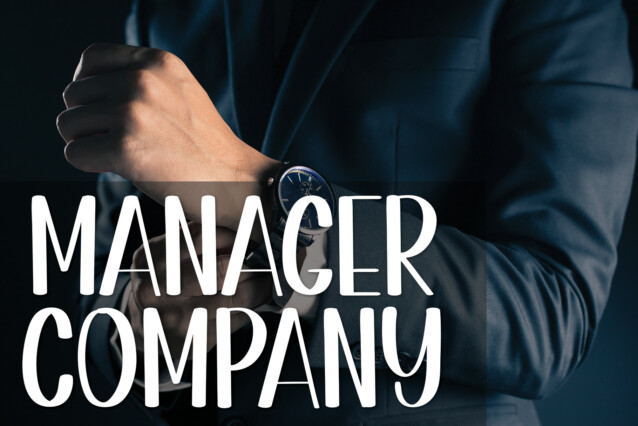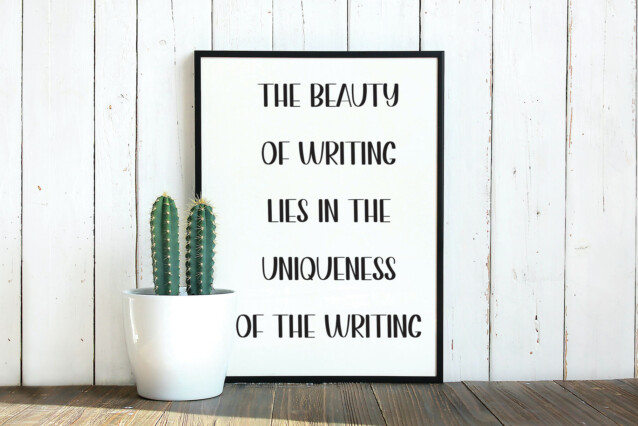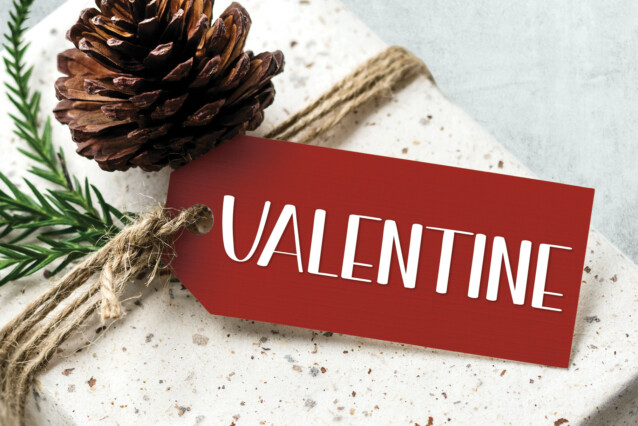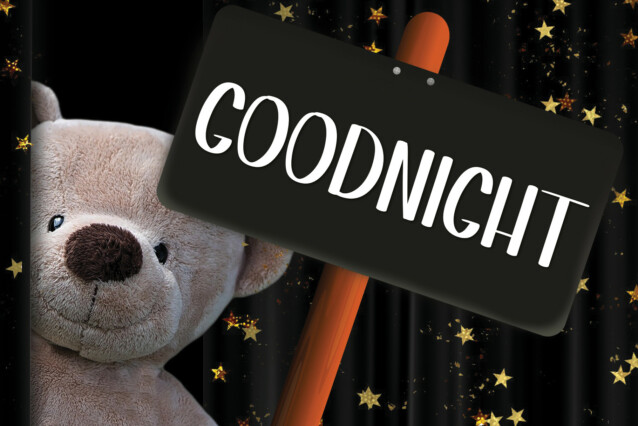
Indoor School Display Font
Indoor School Display Font is a clean and professional-looking handwritten font. Incredibly versatile and with a casual vibe, this typeface is suitable for a wide spectrum of applications.